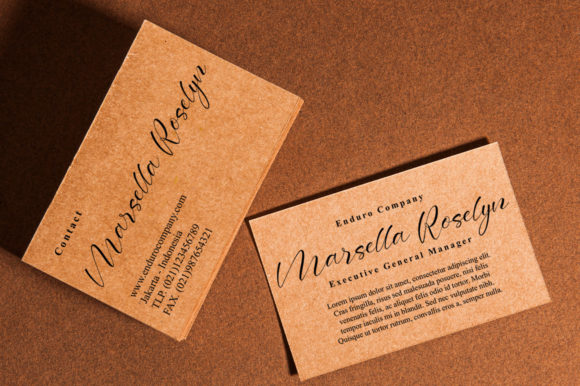
Pancoran Font
db-ku.com - Script & Handwritten -- Pancoran is an amazing script font. It looks great on wedding invitations, thank you cards, quotes, greeting cards, logos, business cards, business promotions, advertisements, posters, marketing, branding and any other designs that require a special touch and high quality. This font is PUA encoded which means you can access all of the glyphs and swashes with ease.